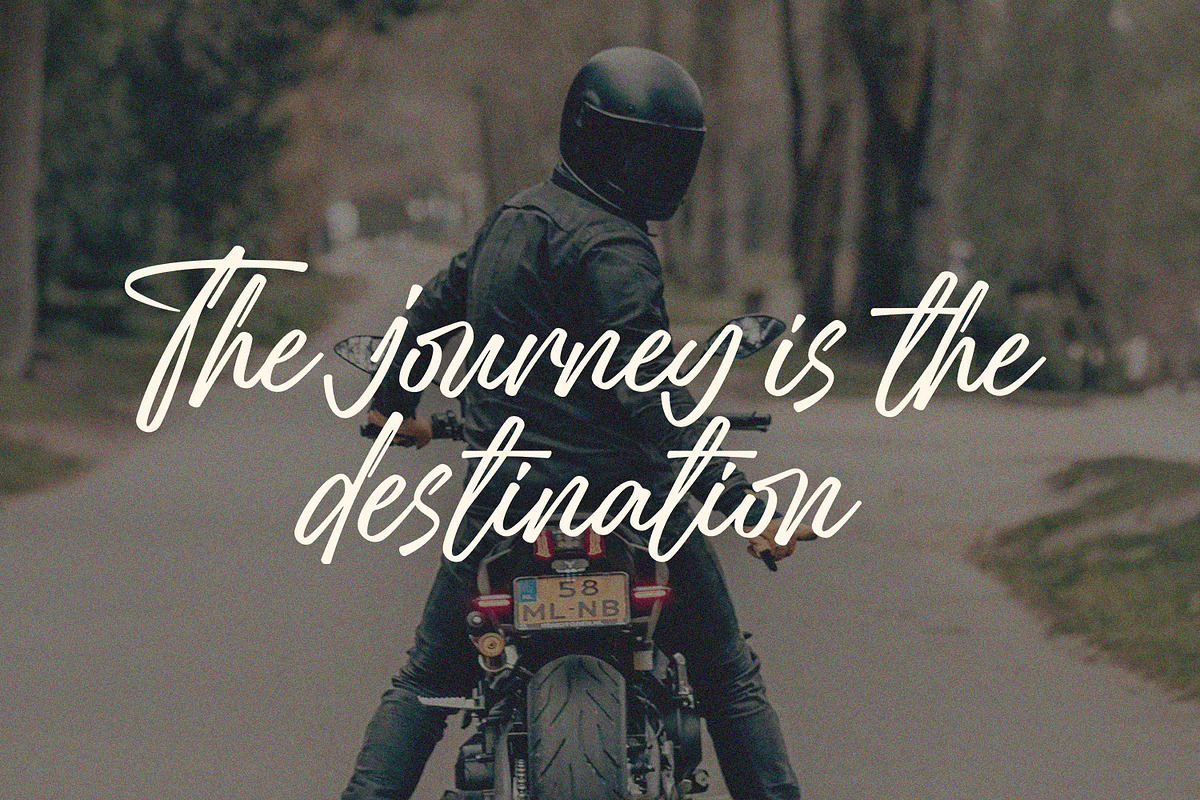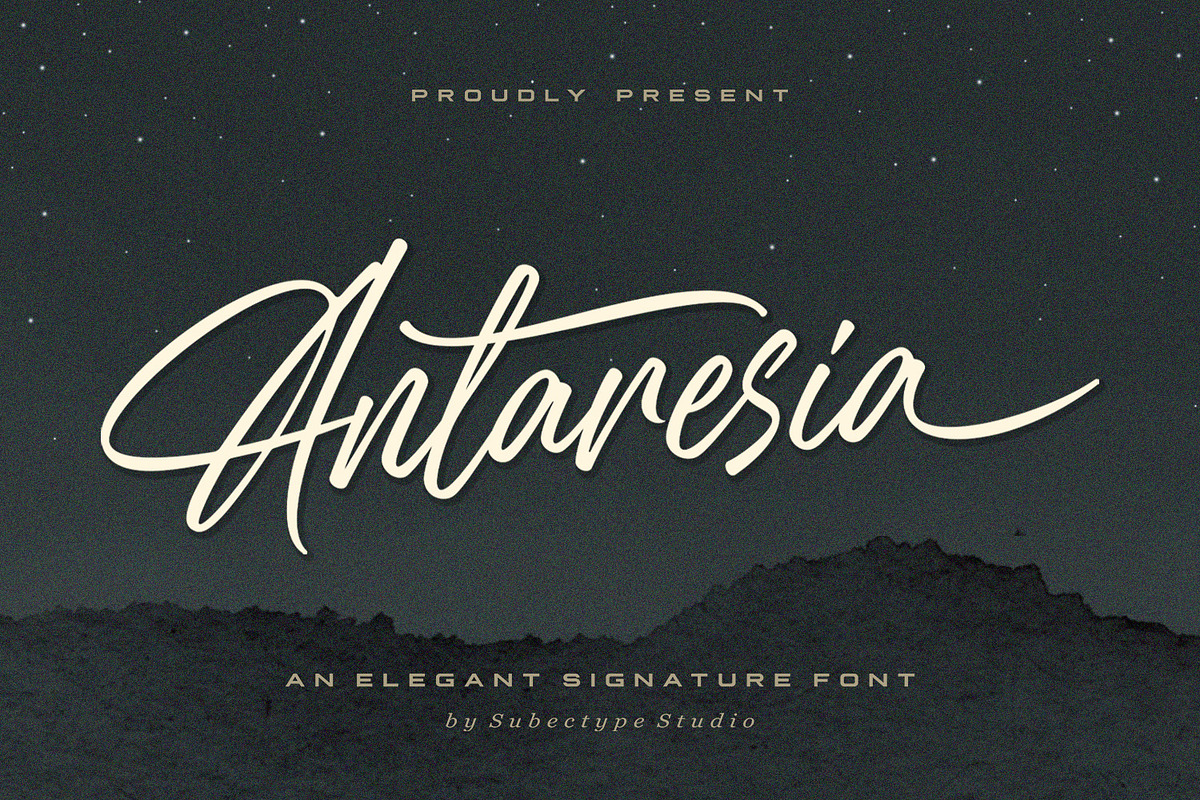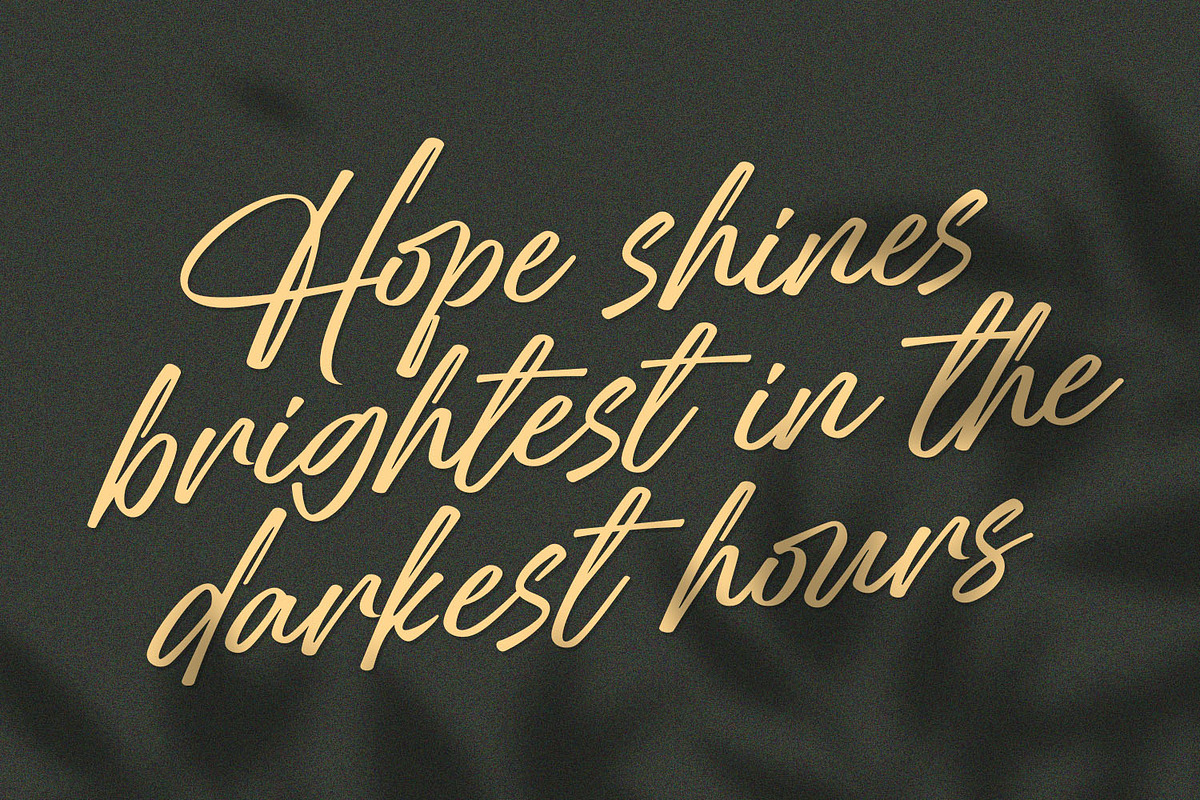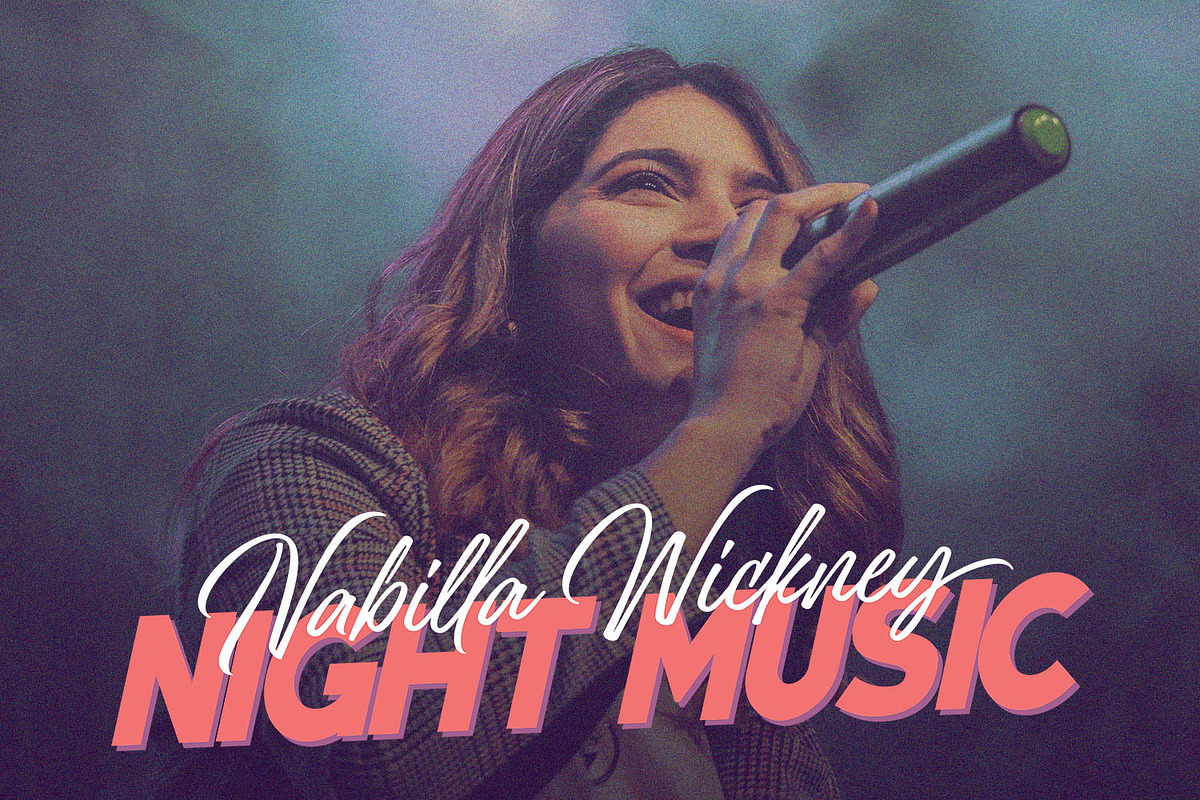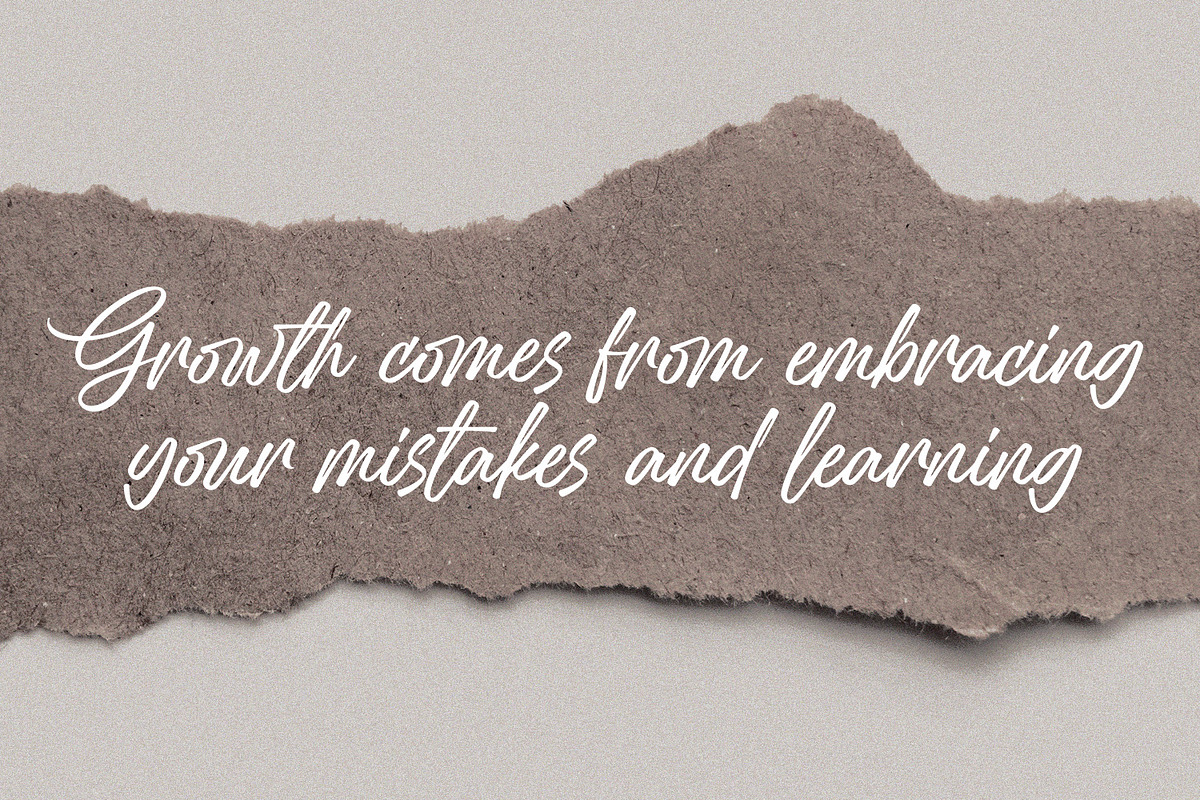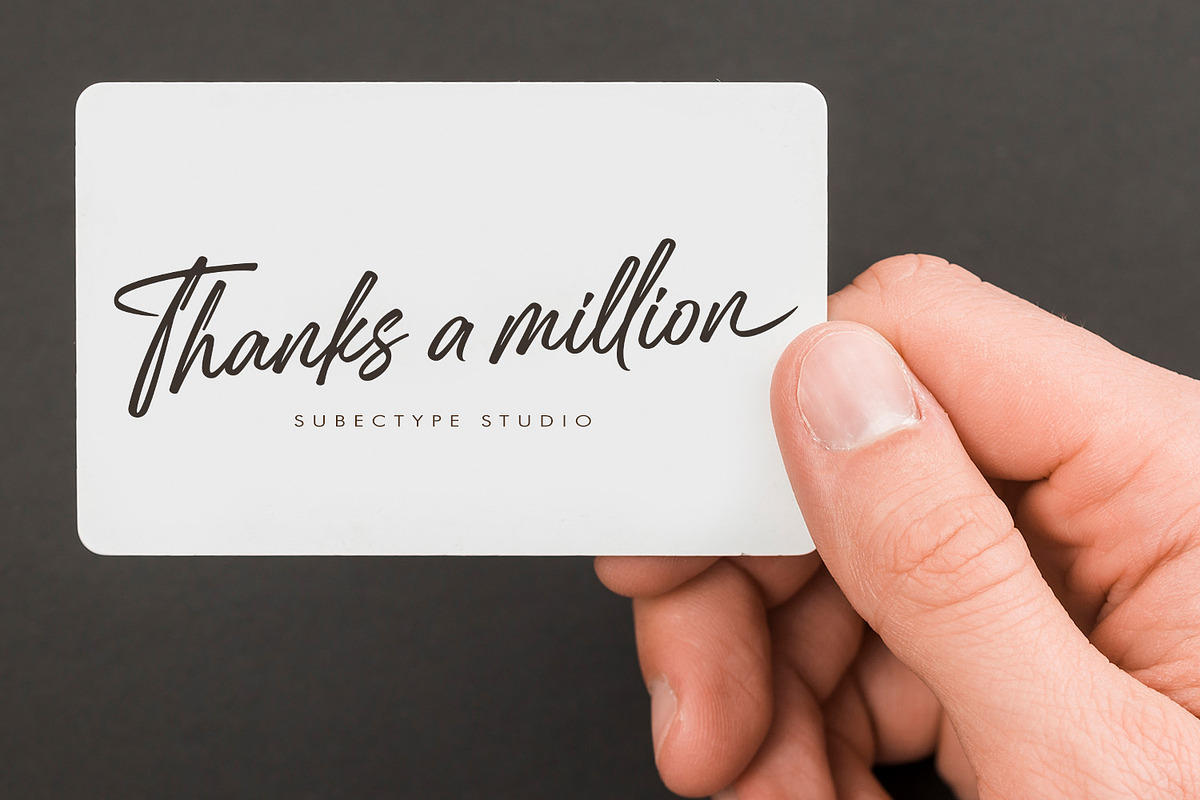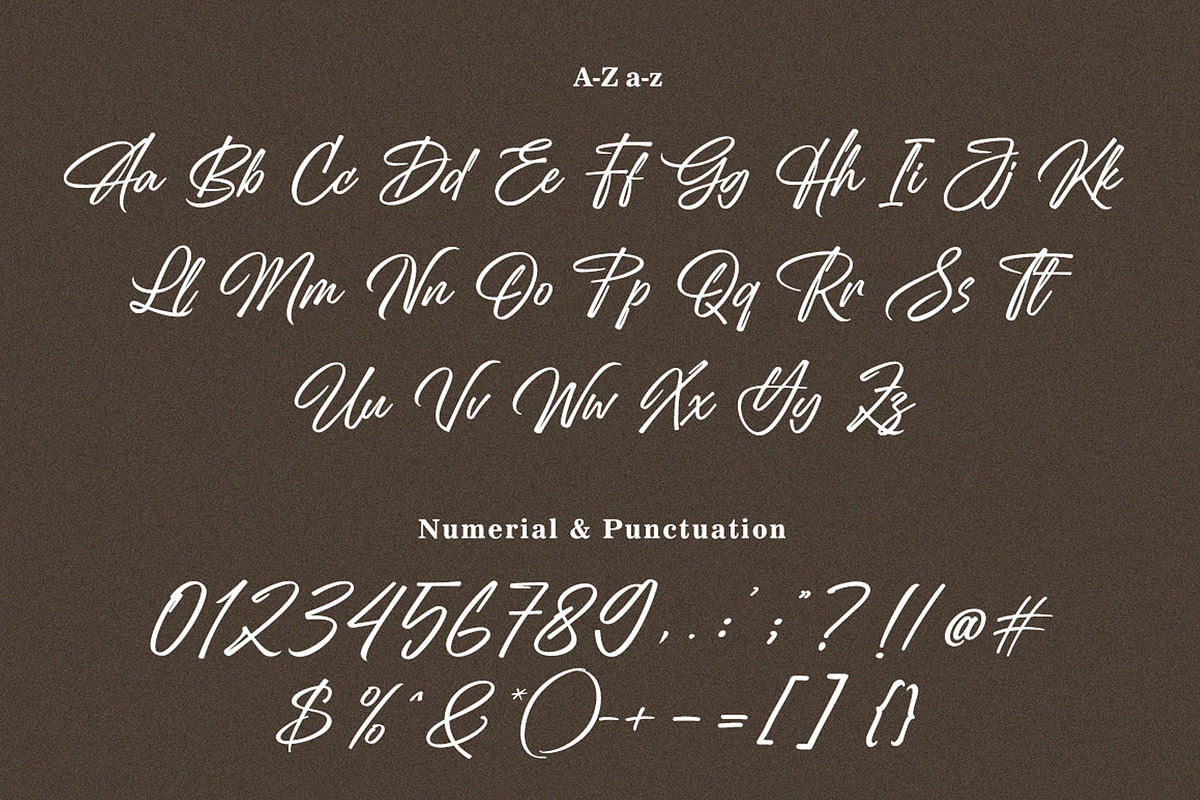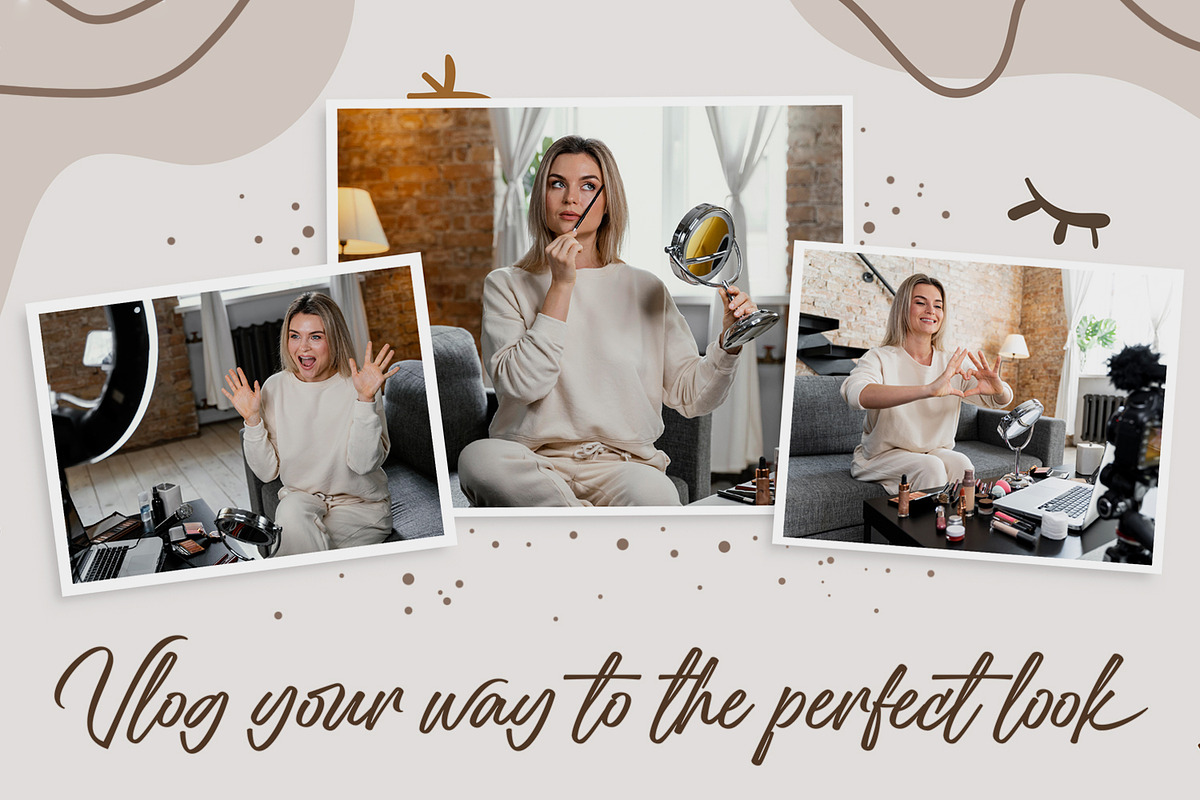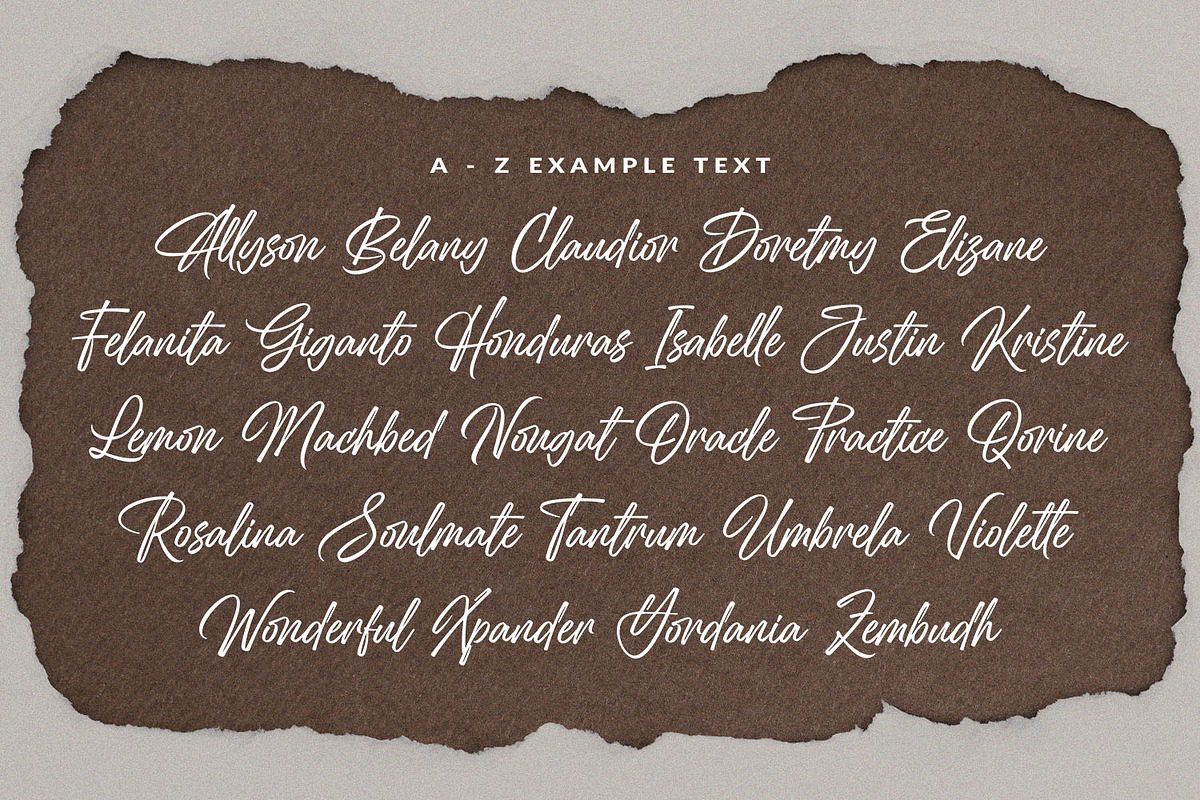
Elegant Signature Font - Antaresia
Antaresia is an elegant handwritten font. This font is Perfect for posters, Logotype, album cover, signature, invitation and more. Elevate your designs with Antaresia font and make a powerful statement with typography that speaks the language of the elegant signature style.